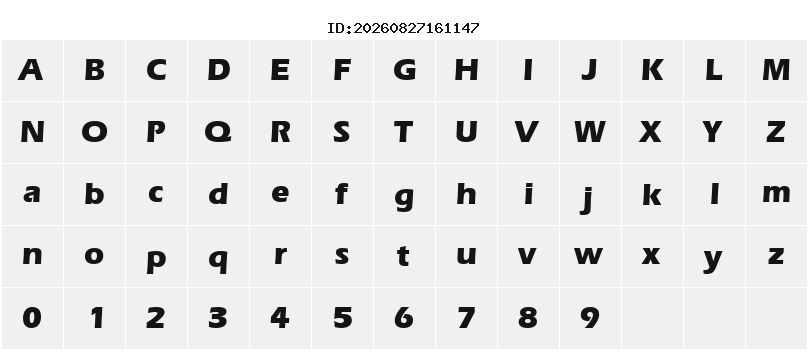
036-CAI978.ttf is a modern, elegant sans-serif font designed for ultimate readability and visual harmony. Perfect for branding, headlines, web design, and print materials.